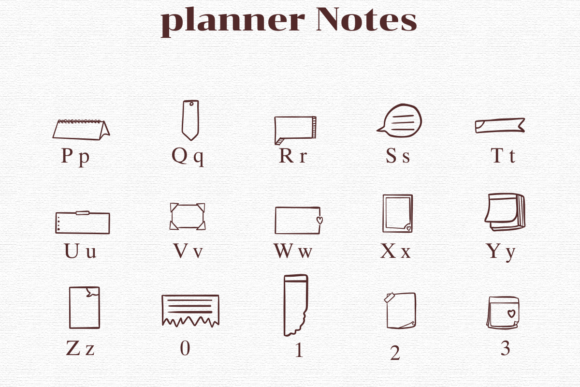
Planner Notes Font
Planner Notes is a fun and handy dingbat font that features various icons and symbols related to note-taking and planning. It includes images like sticky notes, pins, and paperclips, making it perfect for adding creative touches to your planner or journal.